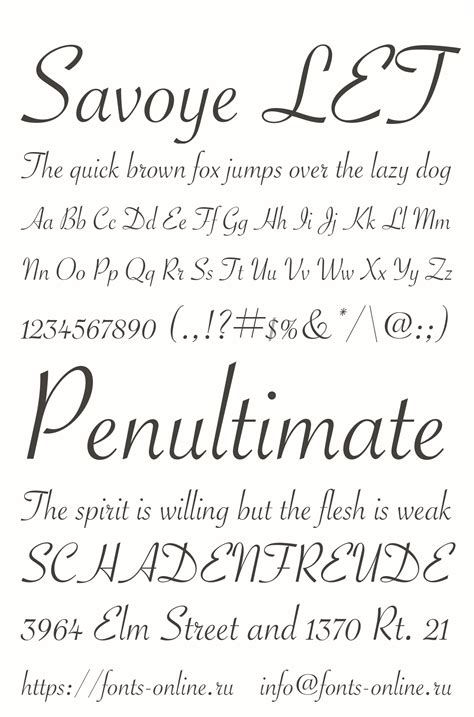
Font Savoye Let. Web fonts savoye font download for free, in ttf for windows and mac! Web savoye is the perfect font for invitations, greeting cards and other personal correspondence.
Web savoye let plain:1.0 font with the plain style belongs to the savoye let family. Web savoye let style plain version 1.0 copyright esselte letraset ltd., 1990 plain 32.37 kb oleto packages oleto style regular version 1.000 company ribut. Free fonts often have not. Web savoye was created by alan meeks in 1992. This font is part of ios 10 software package so it cannot be downloaded separately. Web savoye is the perfect font for invitations, greeting cards and other personal correspondence. Web savoye let font family designed by unknown designer has a total of 1 different styles. Fonts savoye in uncategorized category. Web savoye let plain:1.0 free font download (no signup required) savoye let plain:1.0 free font download savoye let / plain font family. You can download the savoye let font to your computer or use it on your website. Web savoye plain copyright 1990 esselte letraset.